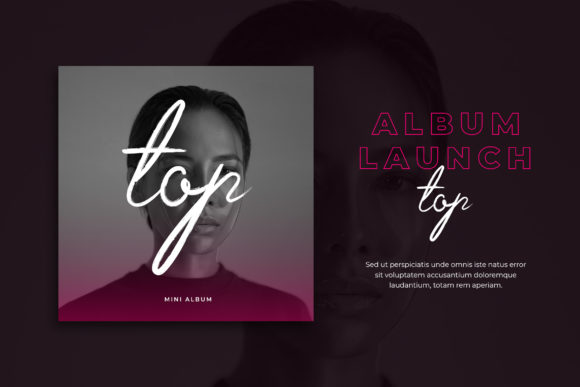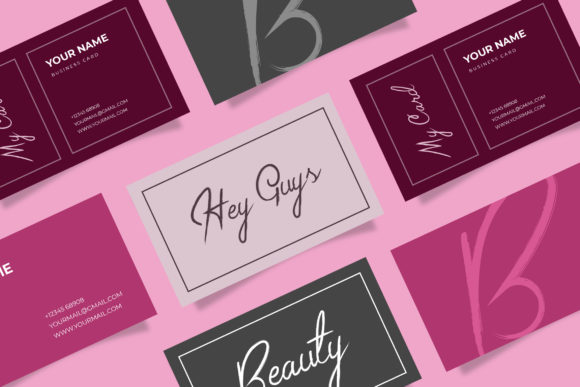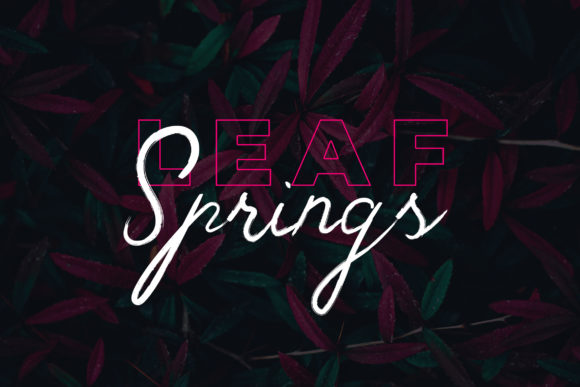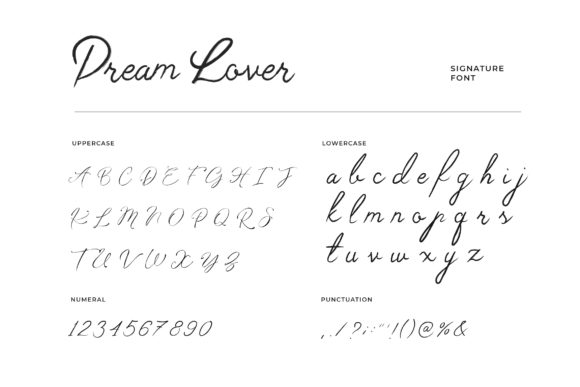
The Dream Lover Font: A Romantic Brushed Script to Sweep You Off Your Feet
I still remember the design project that led me to fall in love with the Dream Lover font. I was working on a wedding invitation suite, and my client wanted a elegant yet playful touch. I had been searching for the perfect font for hours, trying out various scripts and serif fonts, but nothing seemed quite right. That’s when I stumbled upon Dream Lover, a dainty and fashionable brushed script font that instantly captured the romantic vibe I was looking for.
What I Love About Dream Lover ✨
- 💕 Romantic and elegant vibe perfect for wedding designs, invitations, and love letters
- 🎨 Highly versatile and can be used for both formal and informal design projects
- 🖌️ Beautifully crafted with a unique, hand-brushed feel
- ✅ Easy to read and works well in various sizes
- ⚠️ Some letters may require manual kerning for optimal spacing
- ⚠️ Limited availability of extended language support
Dream Lover font comes with a range of OpenType features and glyphs that can help you take your designs to the next level. Here are a few tips:
- Use stylistic alternates to create a more hand-written feel
- Experiment with ligatures to add a touch of elegance
- Access glyphs to add decorative elements, such as flourishes or swashes
The Story Behind Dream Lover: Designer Inspiration
While the true story behind Dream Lover’s creation may be unknown, it’s easy to imagine a designer sitting in a quaint café, surrounded by vintage love letters and antique writing utensils, with the goal of crafting a font that captures the essence of romance and whimsy. The result is a beautiful, hand-brushed script font that exudes a sense of elegance and playfulness.
Q: What type of projects is Dream Lover best suited for?
A: Dream Lover is perfect for a variety of design projects, including wedding invitations, love letters, romantic getaways, and more.
Q: Is Dream Lover available in multiple languages?
A: While Dream Lover may not have extended language support, it’s still a great font for designs that require a romantic and elegant touch.